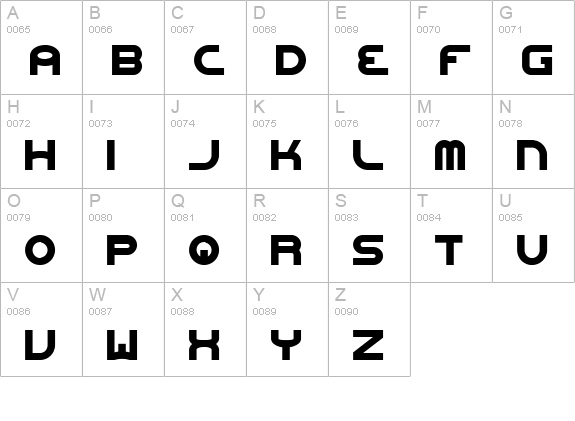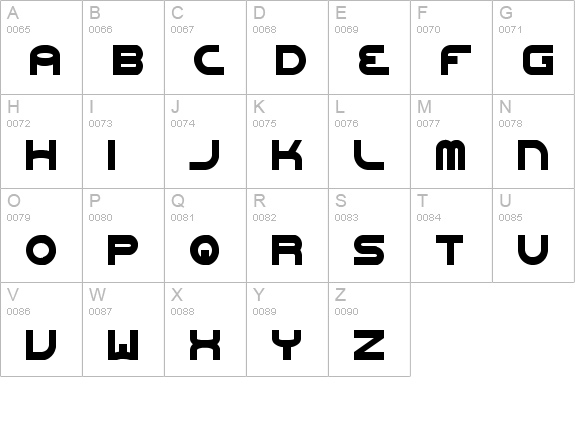
Oneworldonefuture ExtraBold Font Details
Oneworldonefuture ExtraBold is an extra-heavy, attention-grabbing variant in the Oneworldonefuture typeface family \xE2\x80\x94 well suited to high-impact headlines, posters, and bold branding.